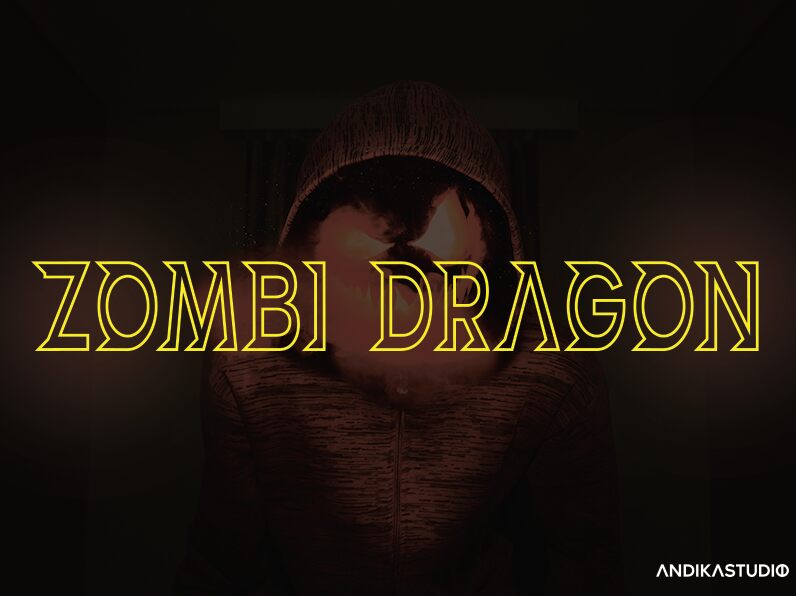
ZOMBI DRAGON
ZOMBI DRAGON is a mesmerizing display font designed by Lontong Lodeh. Its semi-light weight and condensed width make it perfect for creating captivating headings, titles, and slogans. The outlined style of the font adds an edgy touch to any project, making it ideal for designing movie posters, book covers, and video game titles. ZOMBI DRAGON's unique style can also be used in sports branding and apparel design to create a bold statement. With its eye-catching appearance, this font is sure to stand out in any project that requires a distinct look.